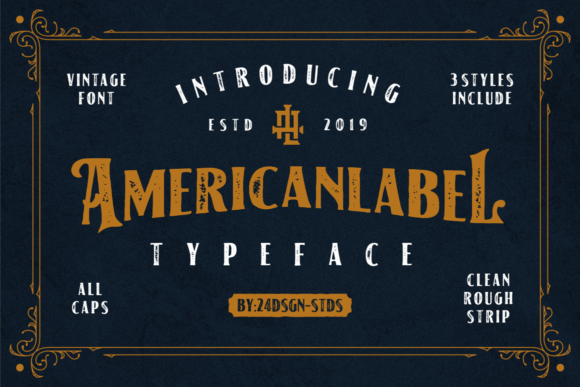
The Ultimate Guide to American Label Font: Elevate Your Designs with a Vintage Twist
I’ll never forget the time I was working on a branding project for a client who wanted a vintage-inspired label for their artisanal products. I spent hours scouring the internet for the perfect font, but nothing seemed quite right. That was until I stumbled upon American Label Font. It was love at first sight! 💕 With its unique blend of classic and modern elements, this stunning display font instantly elevated my design and left a lasting impression on my client.
American Label Font: A Personal Review
• ✨ Unique vintage feel that’s perfect for branding, packaging, and advertising projects
• ✅ Highly legible, even at large sizes
• 💥 Extensive character set, including OpenType features and stylistic alternates
• 🎨 Versatile and adaptable to various design styles
While American Label Font is an excellent choice for many design projects, there are a few things to keep in mind:
• ⚠️ May not be suitable for body text or small font sizes due to its display-focused design
• 🤔 Limited availability of certain characters or glyphs, but this can be addressed with OpenType features
The Story Behind American Label Font
American Label Font was designed with a passion for vintage typography and a desire to create a unique, eye-catching font for designers. The designer’s inspiration came from classic American labels and signage, with a focus on creating a font that’s both nostalgic and modern.
Font Name American Label Font
Author 24Design Studios
What type of projects is American Label Font best suited for? American Label Font is perfect for branding, packaging, and advertising projects that require a vintage or classic touch.
Is American Label Font suitable for body text? No, American Label Font is a display font designed for large sizes and may not be suitable for body text or small font sizes.